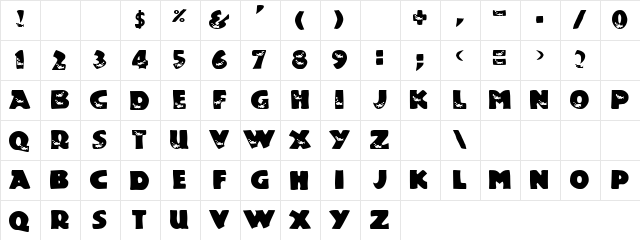
Uvega Regular
Design Context for Uvega Typeface
Uvega is a composed and adaptable typeface that performs quietly and consistently across a wide range of design contexts.